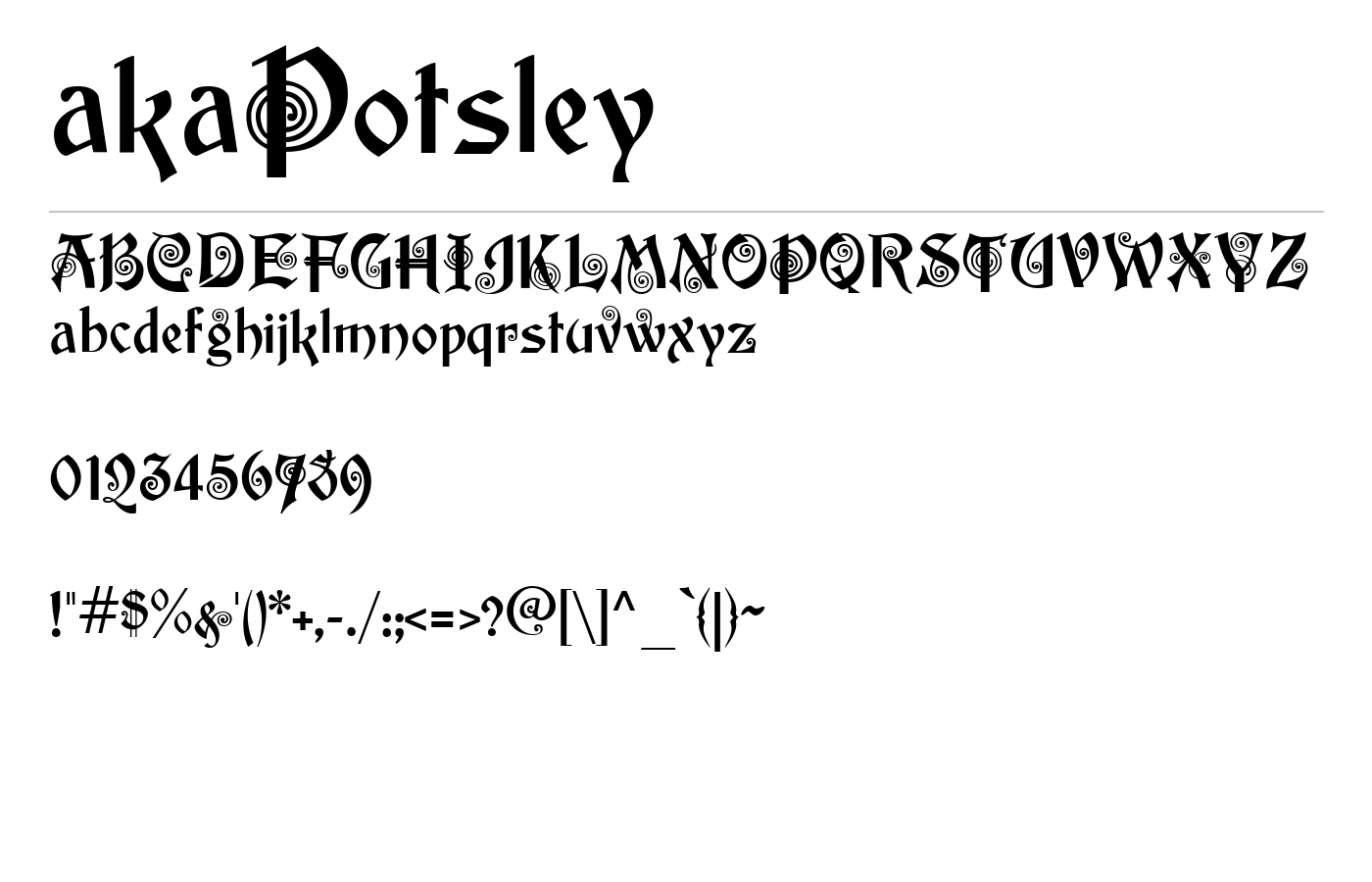
akaPotsley is a distinctive serif font with gothic influences, featuring sharp, angular strokes and dramatic high contrast between thick and thin lines. Its ornate design, characterized by unique spiral motifs and bold, narrow letterforms, gives it a mysterious, vintage vibe perfect for fantasy-themed branding, posters, or editorial design that aims to evoke an old-world or magical atmosphere. This font works best in headlines or titles where its decorative nature can stand out without compromising readability.
akaPotsley Font
About akaPotsley Font